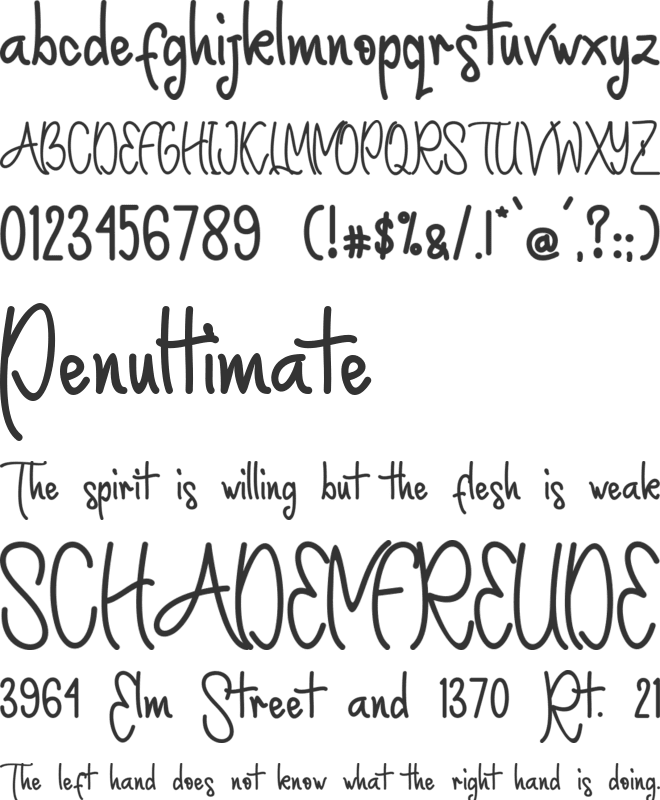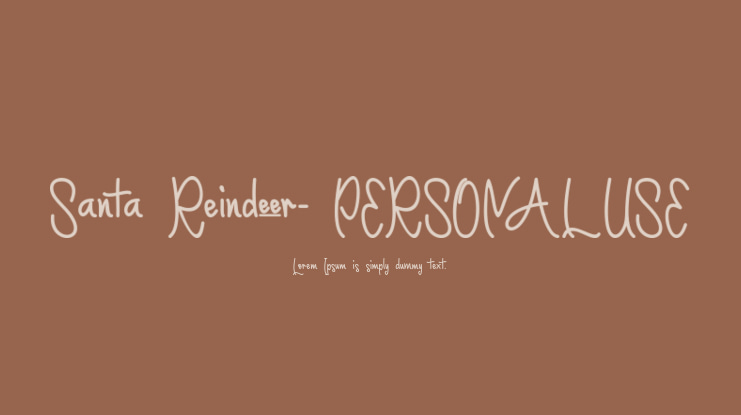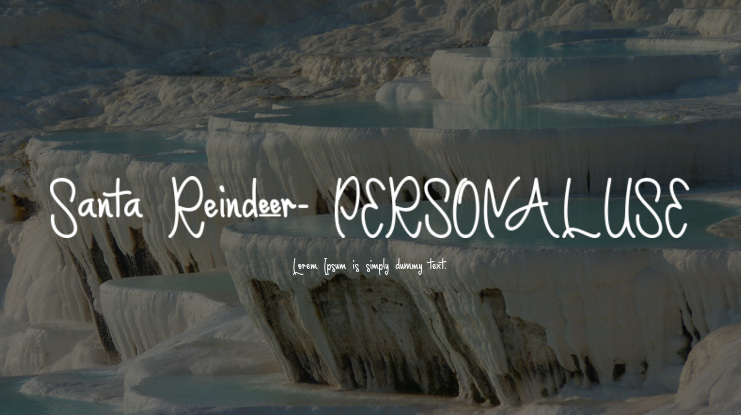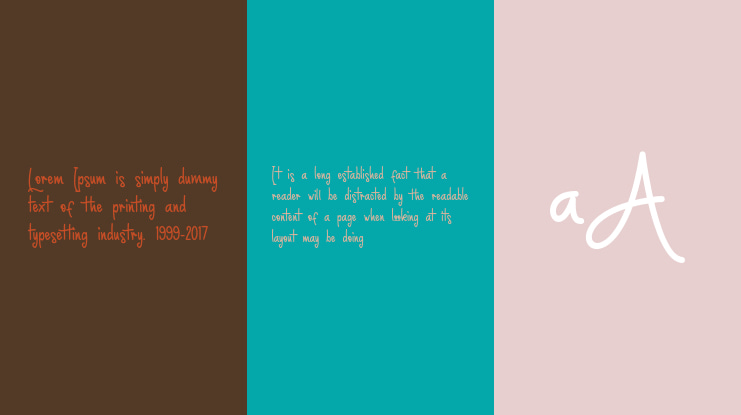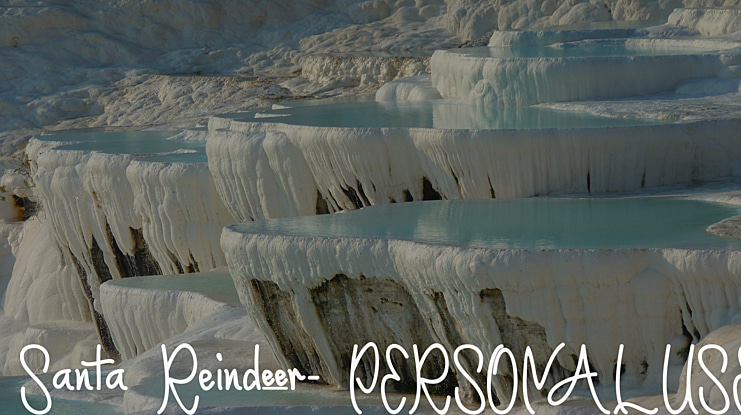
Santa Reindeer- PERSONAL USE Font
Santa Reindeer is the newest Christmas font from Arkrist Letter. Made in a simple, elegant, sweet style, and still looks stylish. Equipped with swash and alternate characters that make this font even more festive.
Let's make this Christmas party even more festive with Santa Reindeer font.